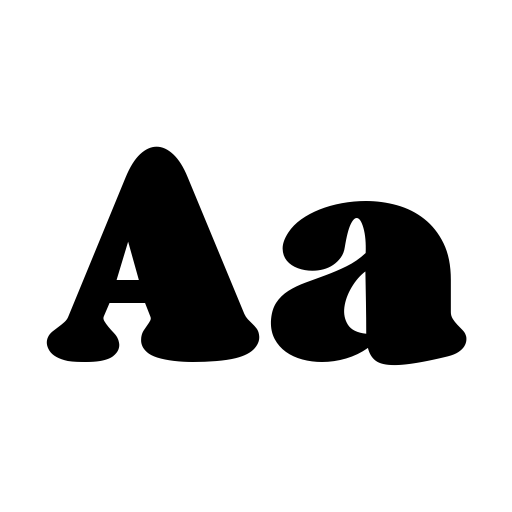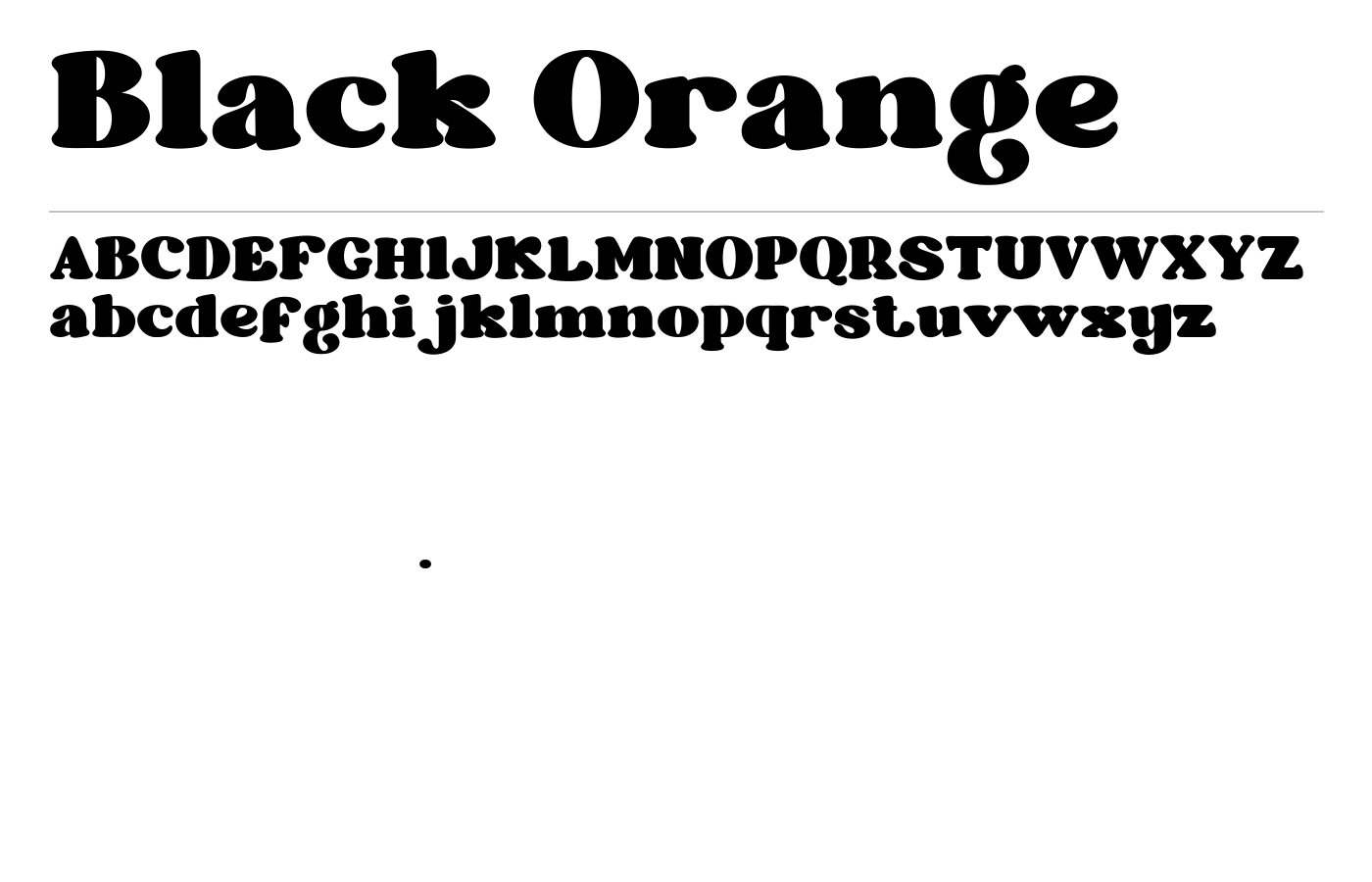
Black Orange is a bold serif font with a strong, playful personality, featuring thick, rounded serifs and high stroke contrast that give it a vintage, retro feel. Its heavy weight and wide letterforms make it ideal for attention-grabbing headlines, logos, and packaging where a fun yet confident statement is needed. This font works well in creative branding and editorial projects that aim to stand out with charm and character.
Black Orange Font
About Black Orange Font
| Font family | Black Orange Font |
| Designer | Flawless And Co |